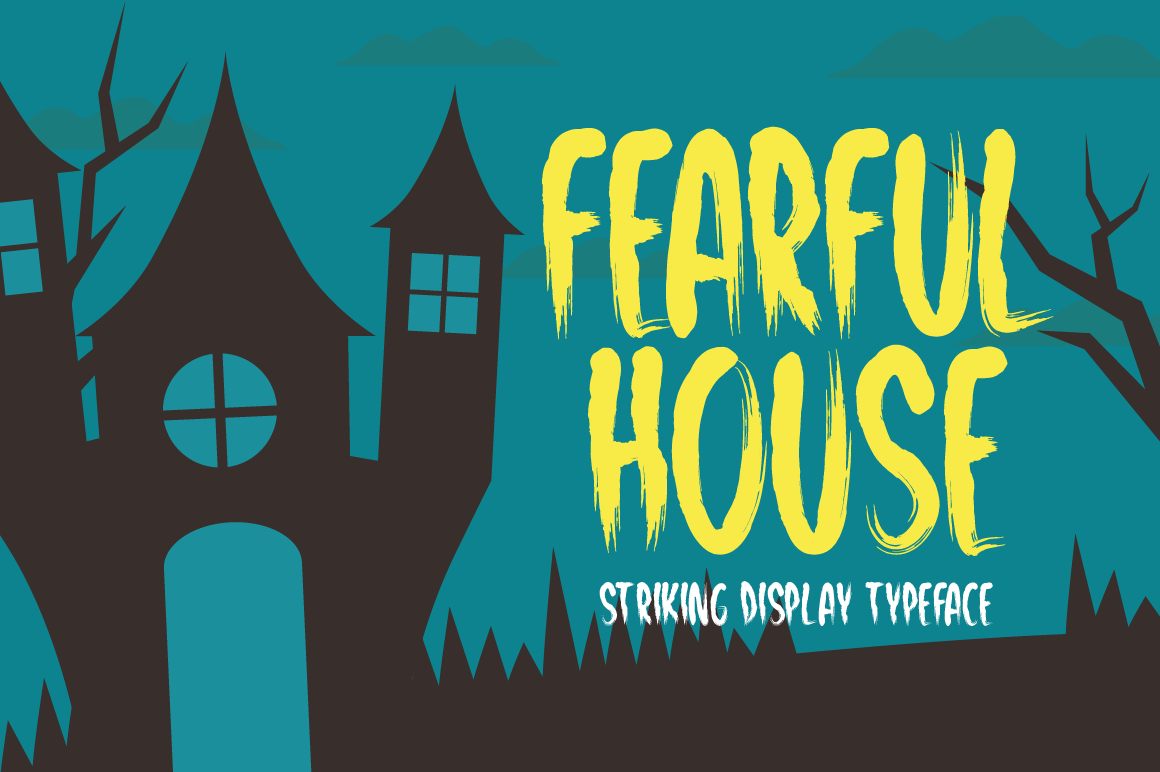
Fearful House Typeface
Introducing Fearful House!
Fearful House is a brand new display font. Fearful House is perfectly suited for stationery, logos, t-shirt, paper, print design, website headers, photo frames, flyers, music covers, posters, image sliders, and much more.
Includes a range of multilingual support